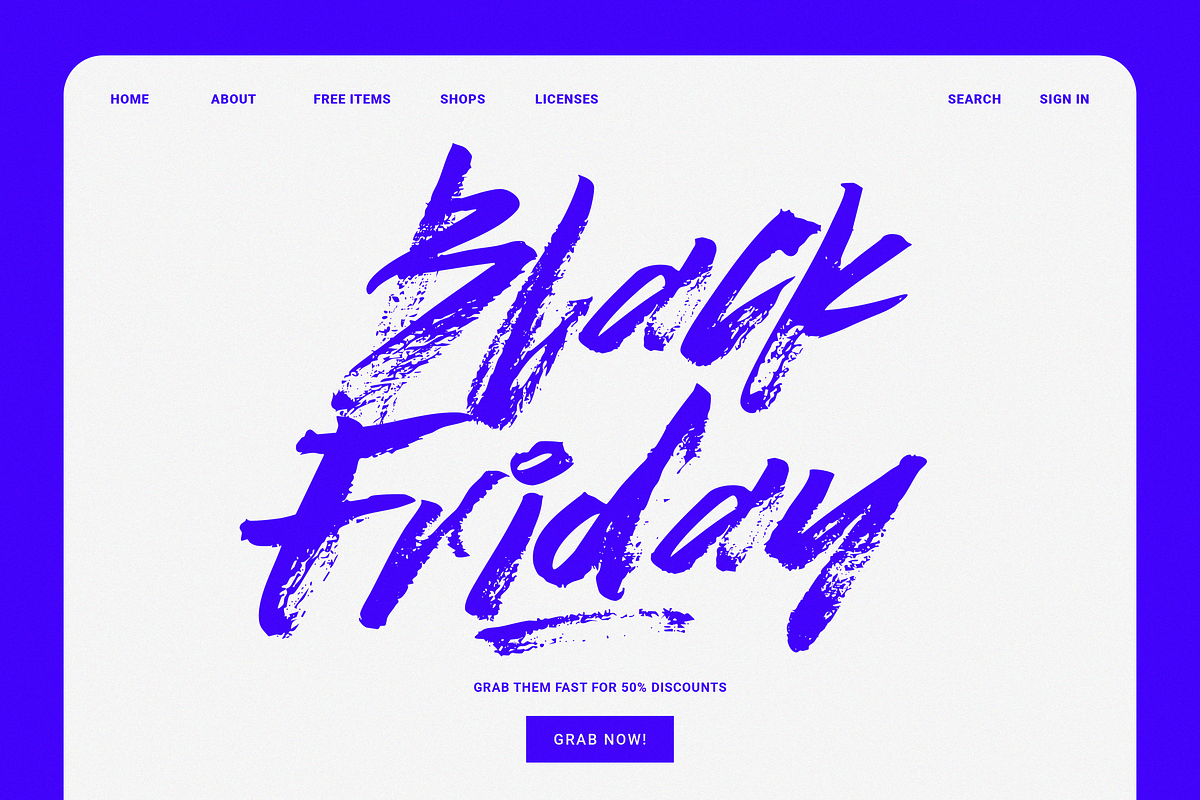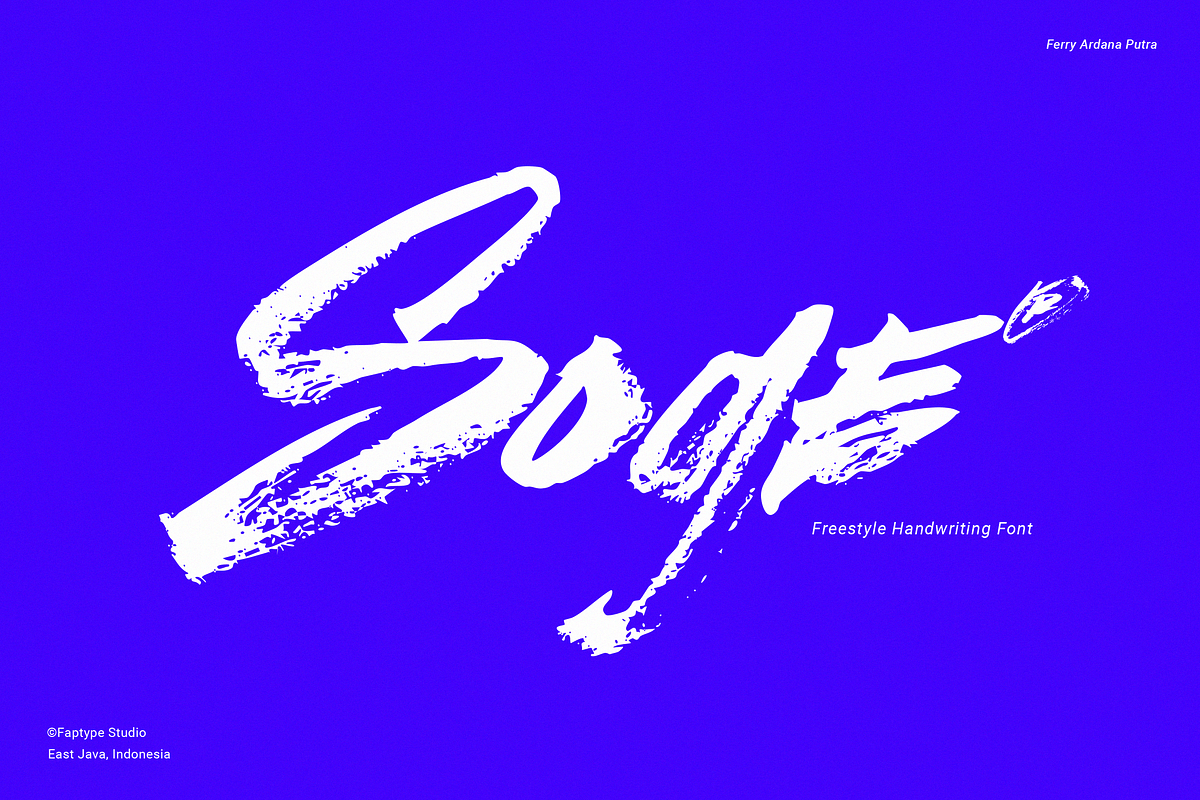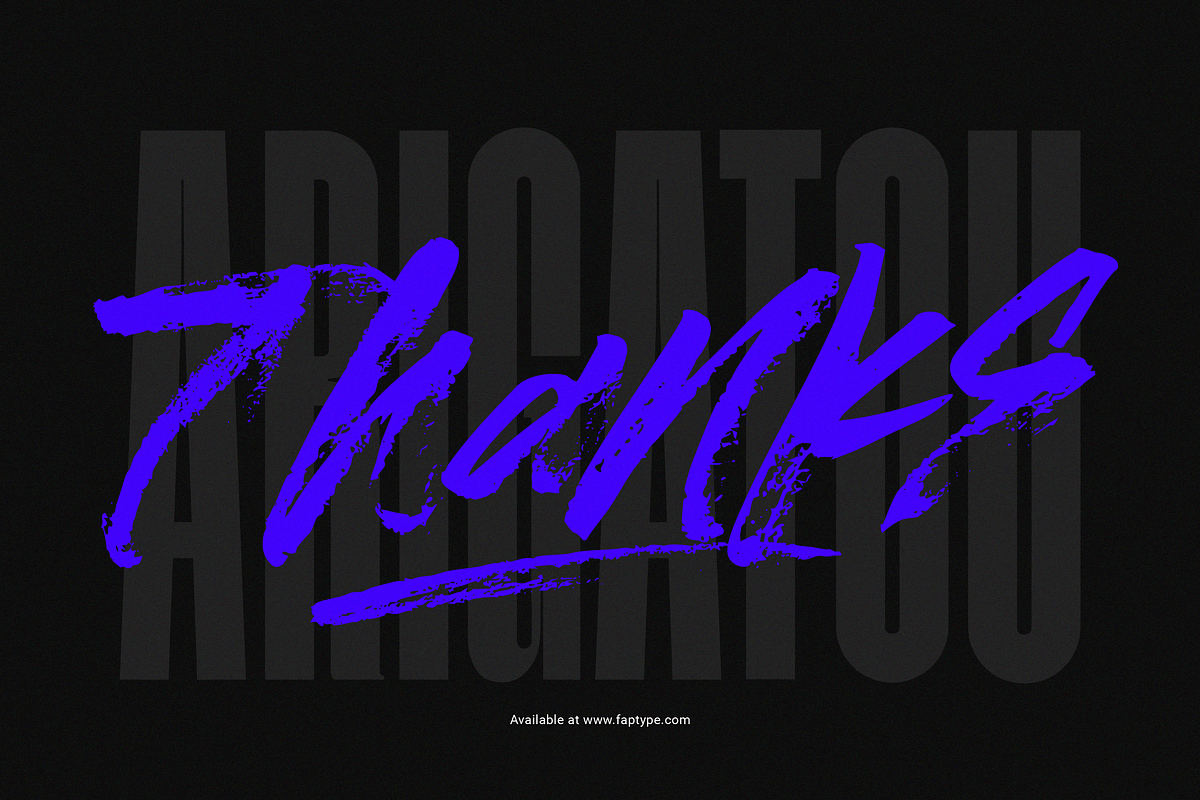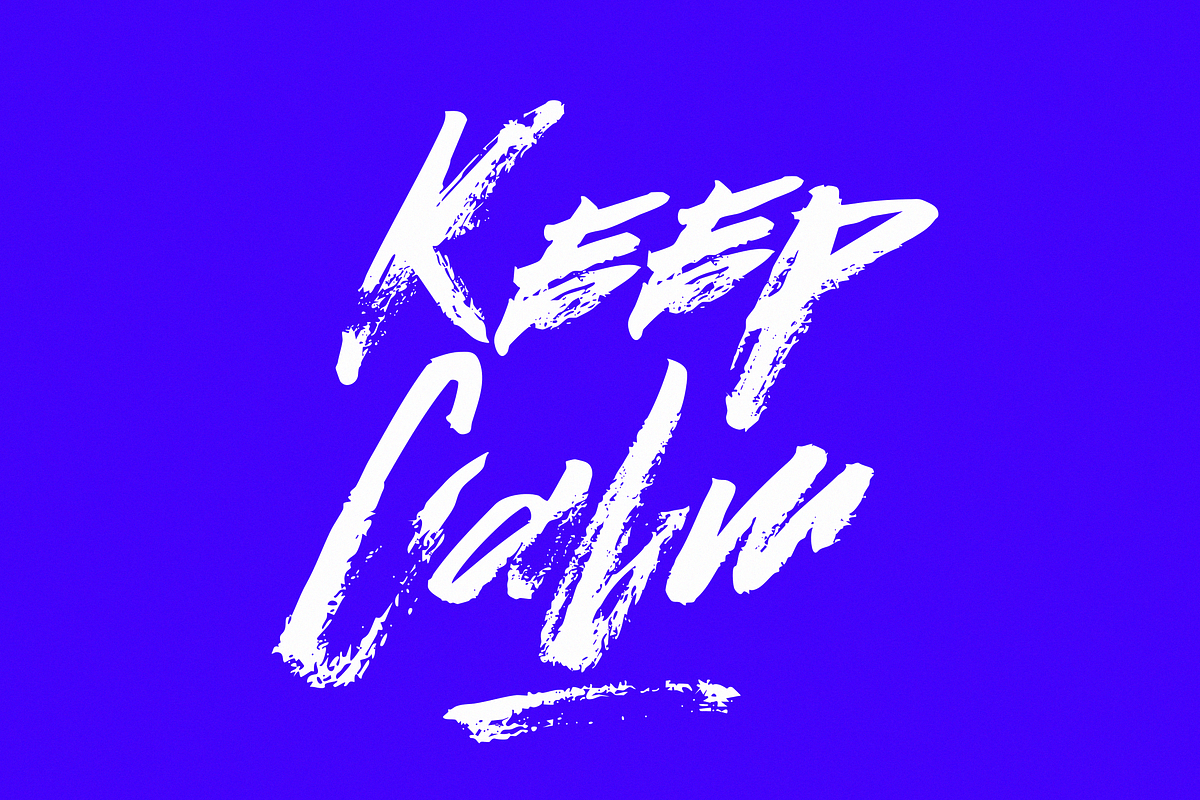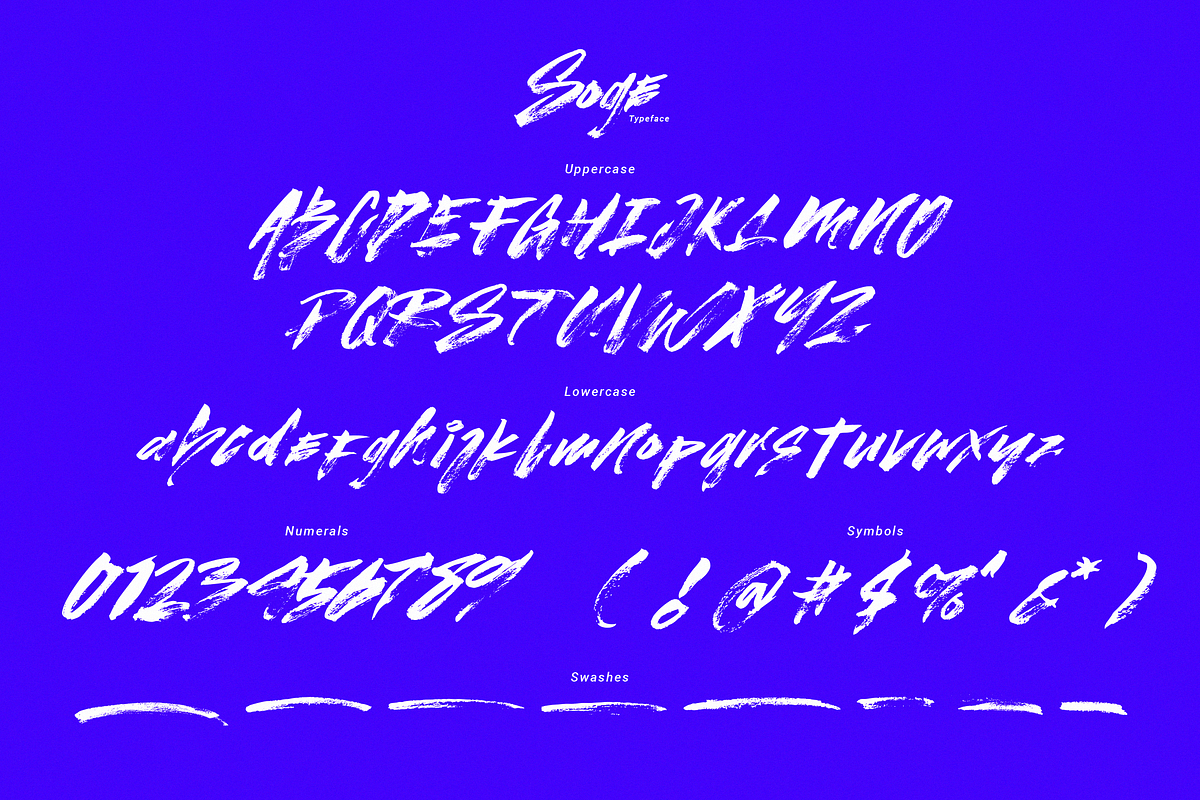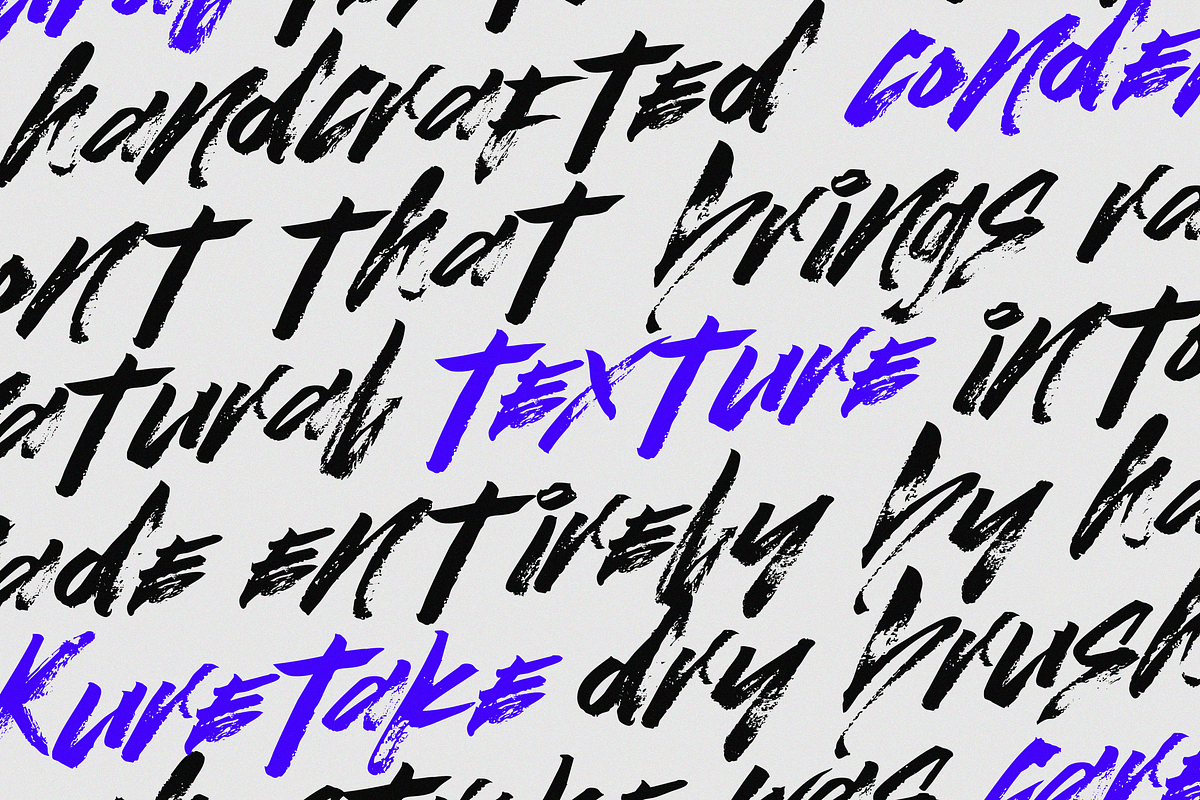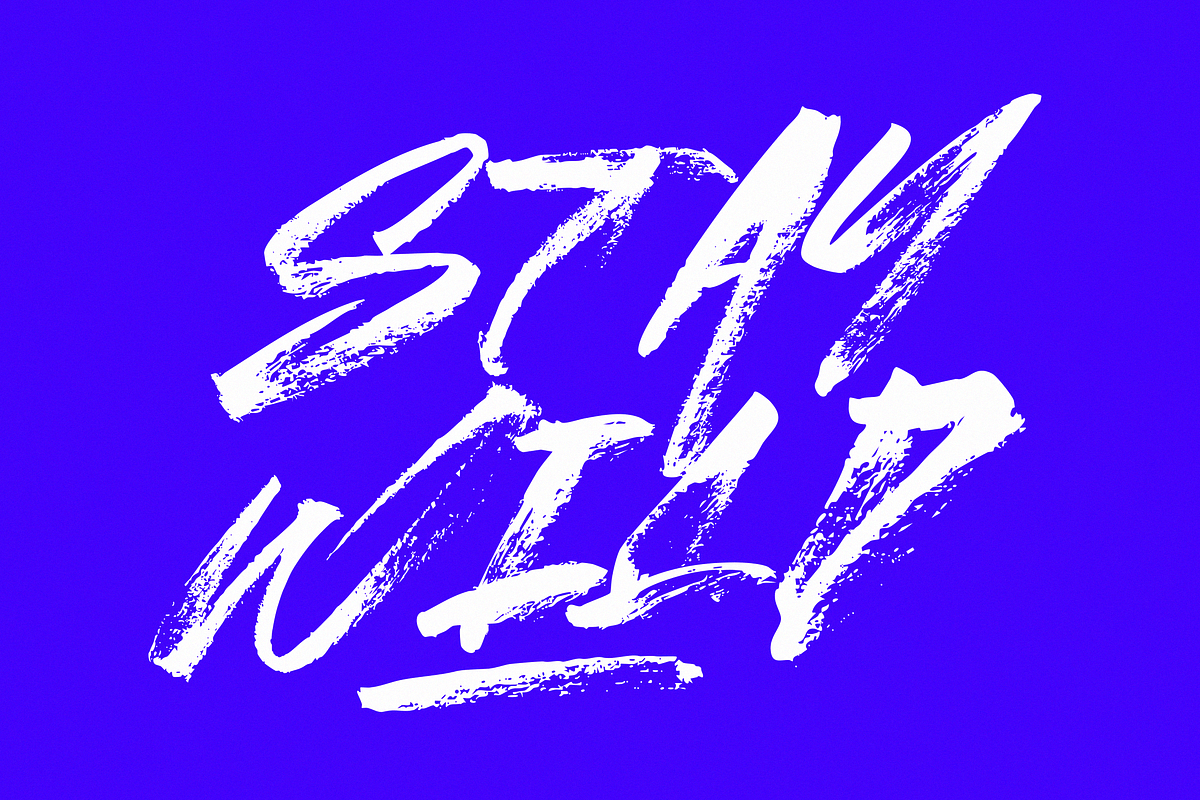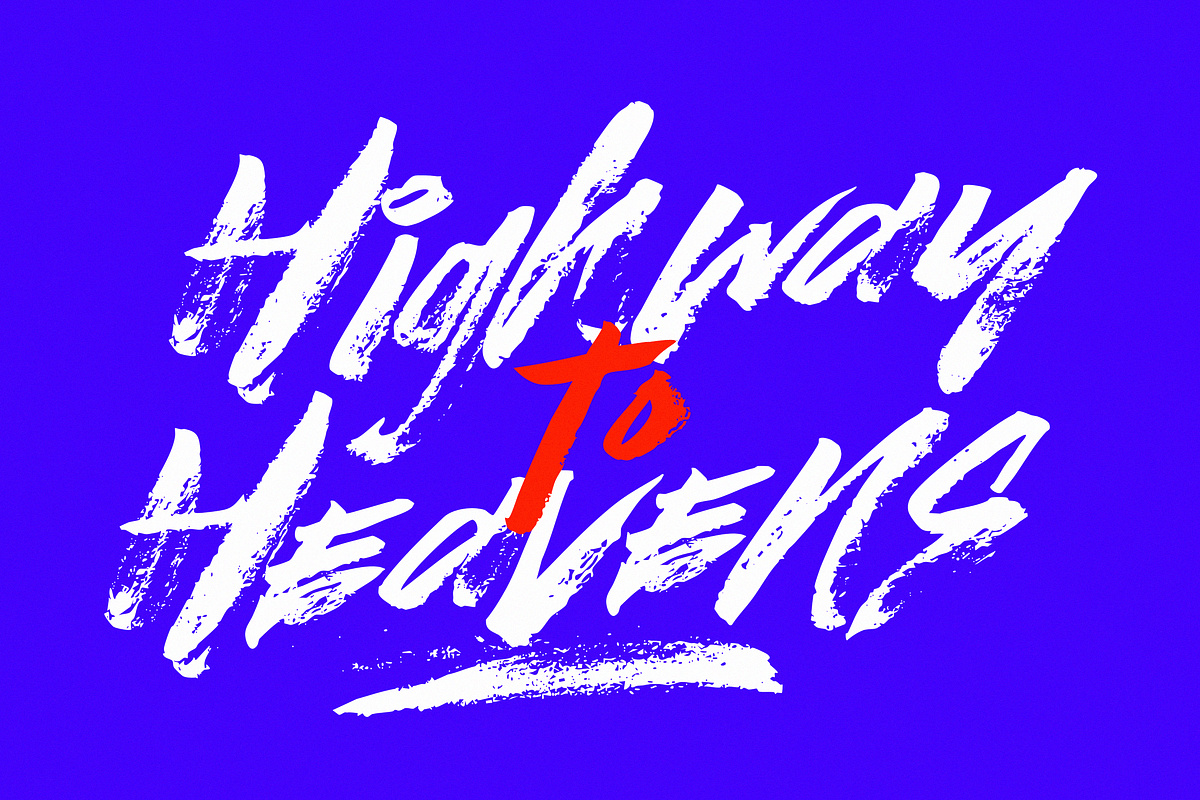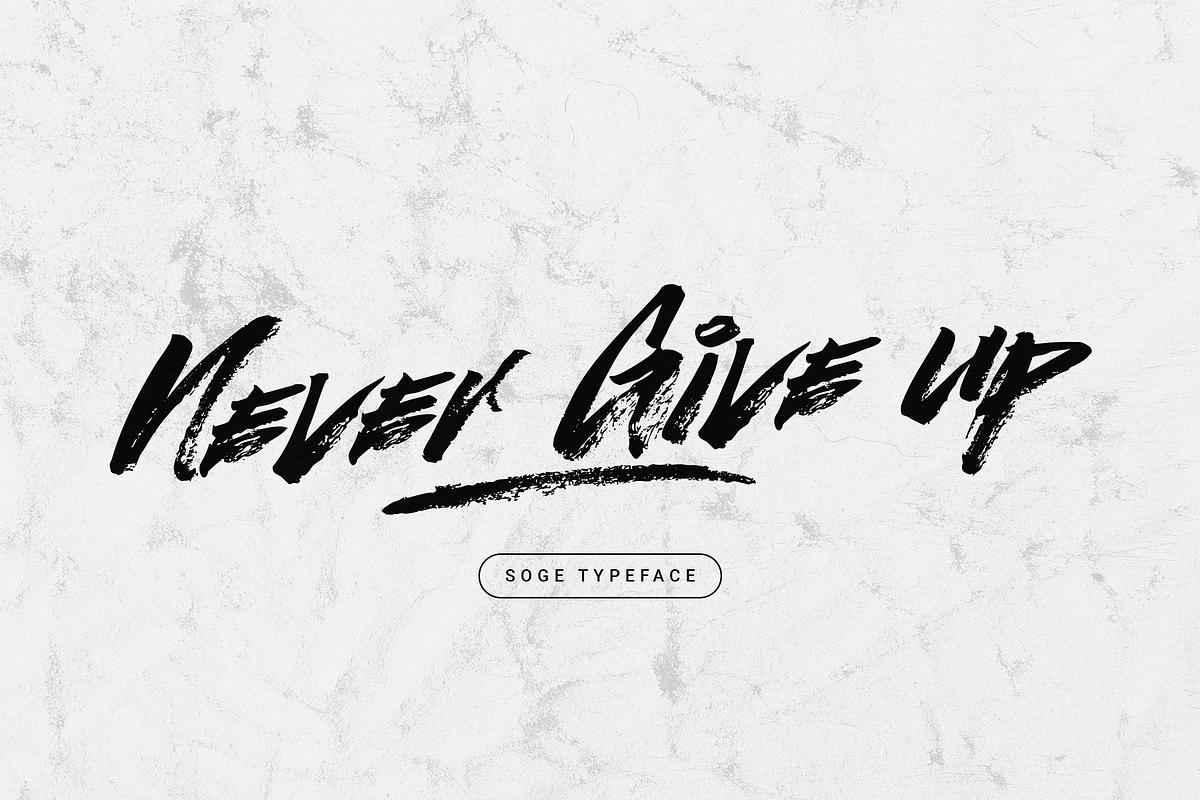
Soge | Freestyle Handwriting Font
Soge – Freestyle Handwriting Font with Authentic Brush Energy
Introducing Soge, a freestyle handwriting font that captures the soul of brush lettering in its rawest, most expressive form. Created manually with a Kuretake dry brush, each stroke was crafted by hand, then carefully scanned and digitized to preserve every texture, splash, and imperfection — delivering a truly natural, heartfelt look.
Soge is more than just a font — it's a reflection of rhythm and emotion. With its organic flow and dynamic energy, this font includes uppercase and lowercase characters, expressive swashes, complete punctuation, symbols, and multilingual support. Every letter dances with the imperfect beauty of hand lettering, making it perfect for logos, packaging, apparel, posters, personal branding, quotes, or anything that deserves a human touch.
Let your designs speak louder with the warmth of handwritten ink. Whether you're building a fashion brand or a poetic poster, Soge brings soul, softness, and personality to every project. Embrace the art of imperfection — and let your words move like brushstrokes on paper.
Soge Features:
- A full set of Uppercase and Lowercase
- Numbers and Punctuation
- Multilingual Language Support
- OpenType Features
- +245 Total Glyphs